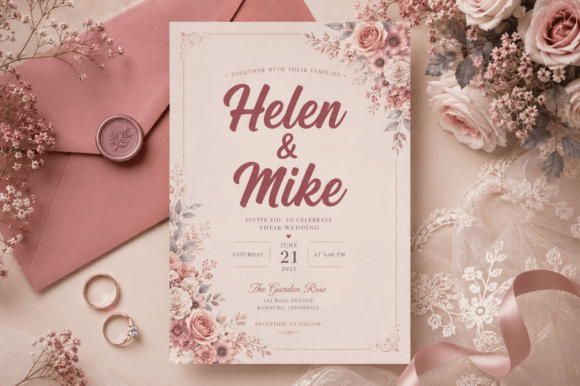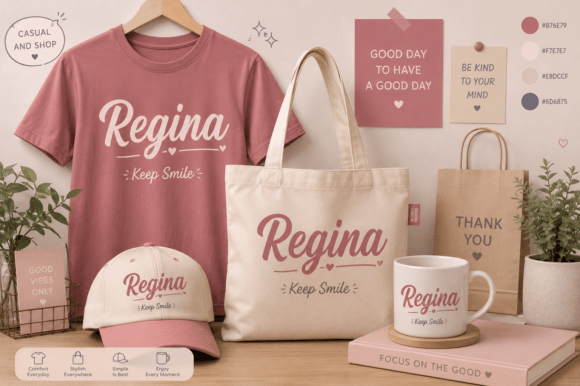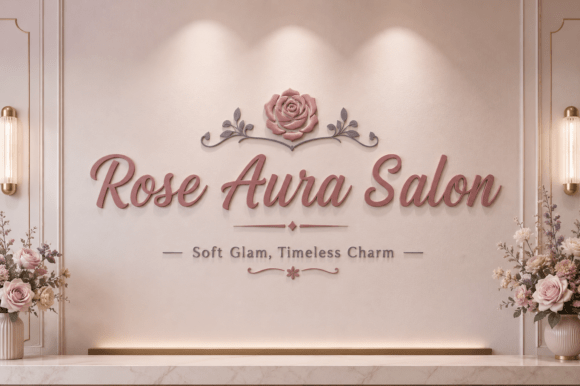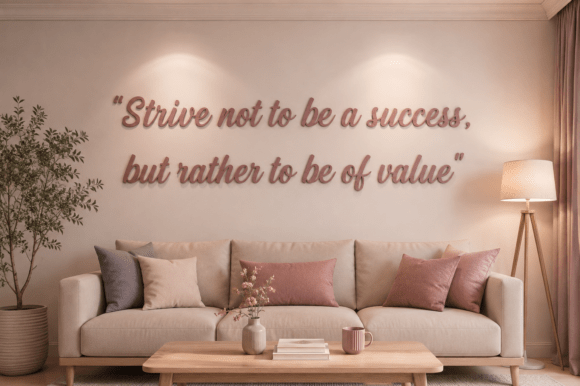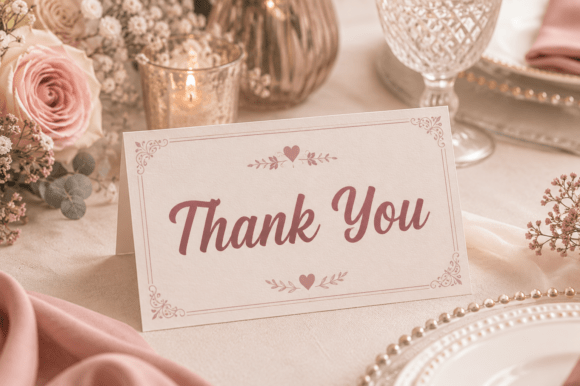
Introduction to Rosalyna Font
Have you ever been working on a creative project, pouring your heart and soul into it, only to realize that the perfect font is missing? The one that captures the essence of your vision and elevates your design to the next level? For designers, finding that elusive perfect font can be a daunting task, but fear not, for we have discovered a gem that will make your heart skip a beat – the Rosalyna Font.
This stunning handwritten script font is a game-changer, offering a sophisticated and smooth aesthetic that effortlessly blends contemporary eloquence with a hint of romantic allure. With its effortlessly connected letterforms and crystal-clear brush texture, the Rosalyna Font is the perfect addition to any design project.
Key Features of Rosalyna Font
- Rosalyna Font is a high-quality design resource perfect for creative projects.
- The font features a transparent background, making it easy to use with any background design.
- Rosalyna Font has a unique, elegant design that is sure to add a touch of sophistication to any creative project.
- Rosalyna Font is a versatile design resource that is perfect for a wide range of creative projects, from logos and branding to typography and design elements.
Honest Review: Rosalyna Font
I recently came across the Rosalyna Font while searching for a high-quality design resource for a creative project. I was immediately drawn to its elegant and sophisticated design.
- What works well: ✨ The Rosalyna Font is incredibly versatile and can be used for a wide range of creative projects, from fashion to food packaging.
- What works well: ✨ The font is available in a range of weights, from light to bold, making it easy to create a consistent design.
However, there are a few limitations to the Rosalyna Font. The font is only available in a limited range of languages, which may be a problem for designers who need to create designs in multiple languages.
Overall, I’m very impressed with the Rosalyna Font. Its elegant design and high-quality features make it an excellent choice for any creative project. While it may have some limitations, the benefits far outweigh the drawbacks.
Rosalyna Font
Rosalyna Font is a high-quality design resource ideal for creative projects. It is available for free download and features a transparent background, making it versatile for various applications.
Getting the Most Out of Rosalyna Font
To get the most out of this font, consider the following tips:
- Experiment with different font sizes and styles to achieve the desired visual effect.
- Combine Rosalyna Font with other design elements to create a cohesive look.
Rosalyna Font is suitable for various design projects, including:
- Graphic design for social media and marketing materials.
- Logo design and branding.
- Document design for reports and presentations.